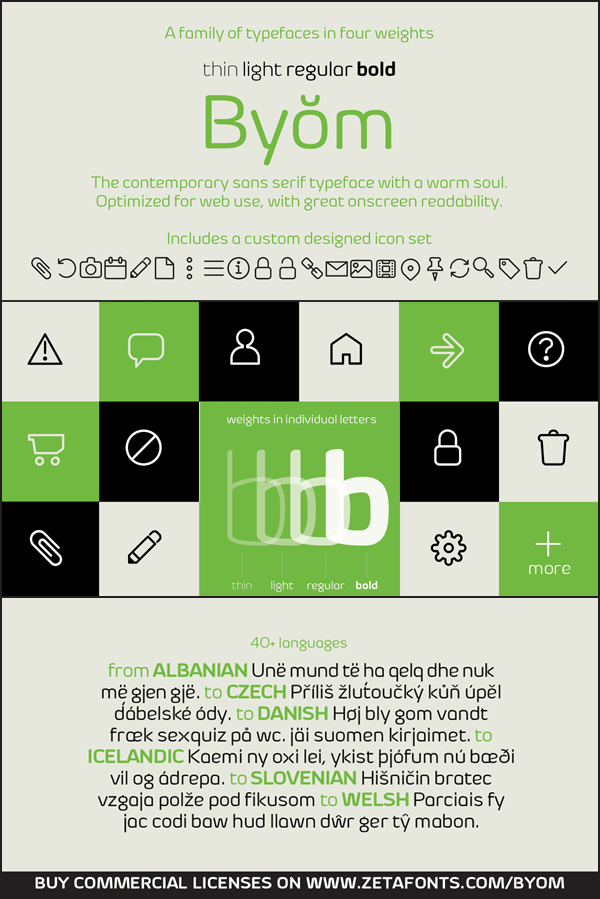
Designed by Francesco Canovaro, Byŏm is a contemporary sans serif typeface family based on natural, round shapes that convey a strong statement of ease, and clarity. It strives to bring to web, app and print design an essential spirit of purity, transparency and natural balance. Byŏm covers over 40 languages that use the Latin alphabet, with a full range of accents and diacritics; it comes in four weights and includes a custom designed icon set for pixel perfect screen visualization at 16 px base and multiples. ---------------------------- This trial font is TOTALLY FREE for NONCOMMERCIAL USES. For commercial uses and to download the full commercial typeface visit http://www.zetafonts.com/byom ---------------------------- If you have a graphic design blog, you can get a FREE LICENSE by writing a blog post about this typeface. ---------------------------- Have a question?: info@zetafonts.com |